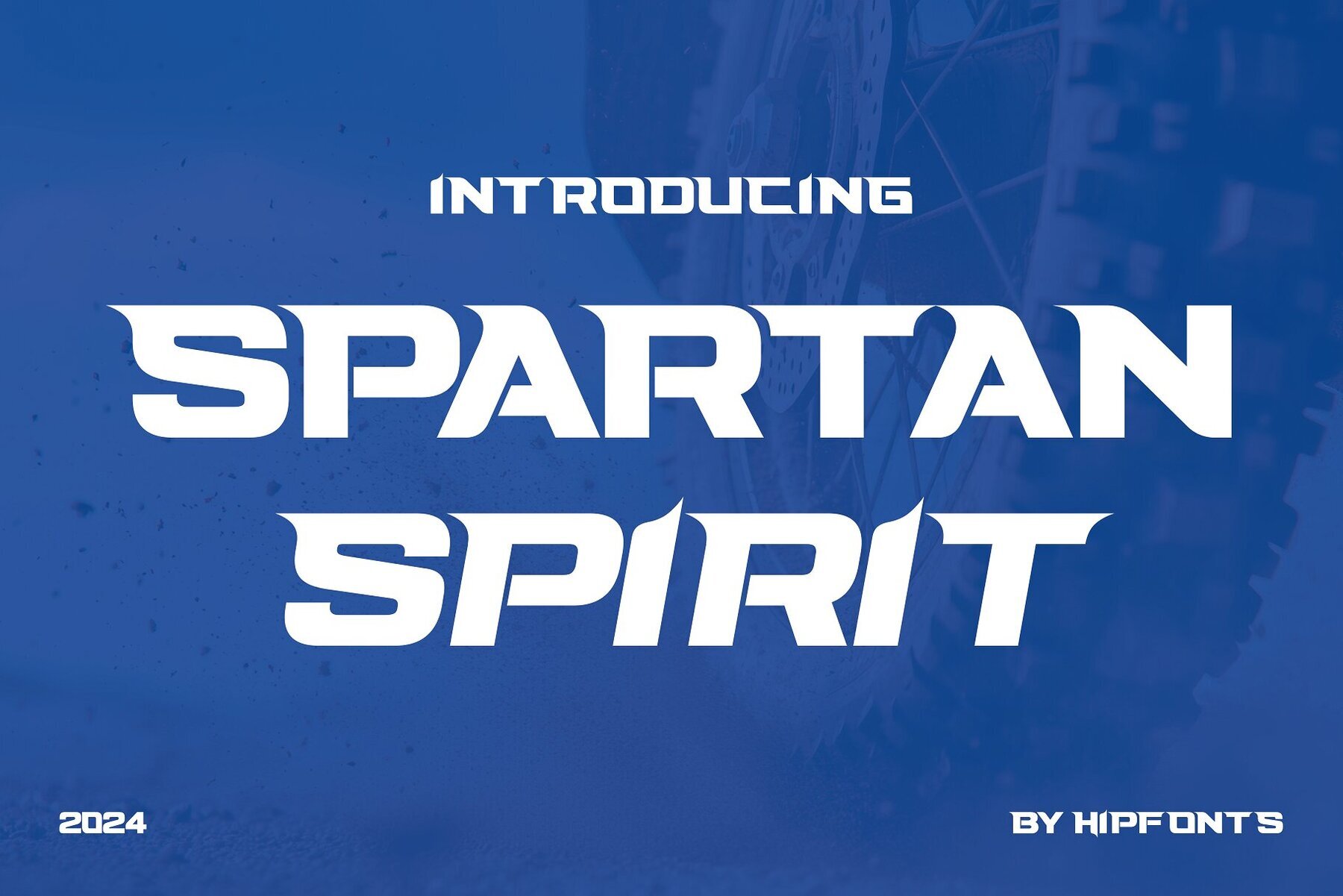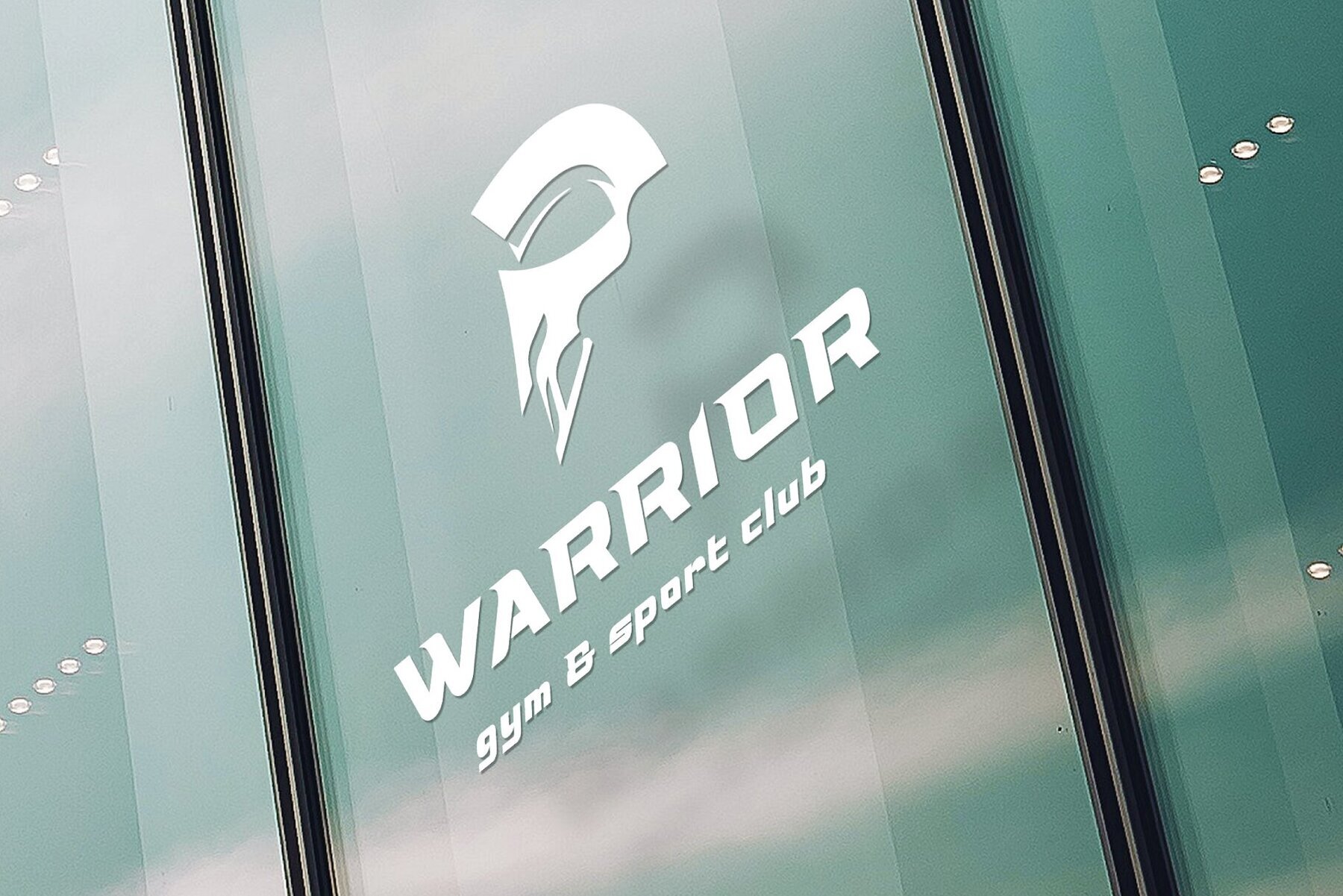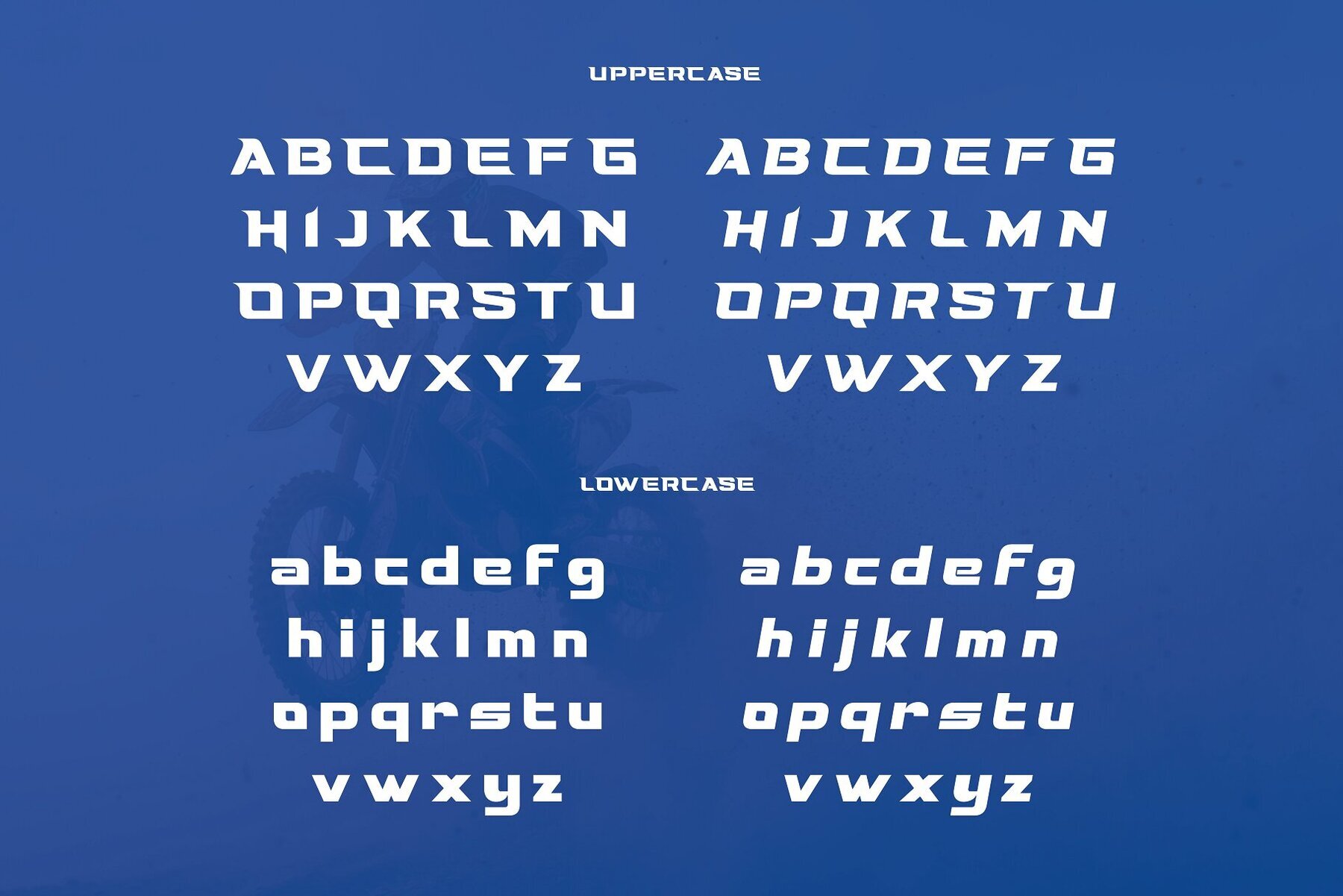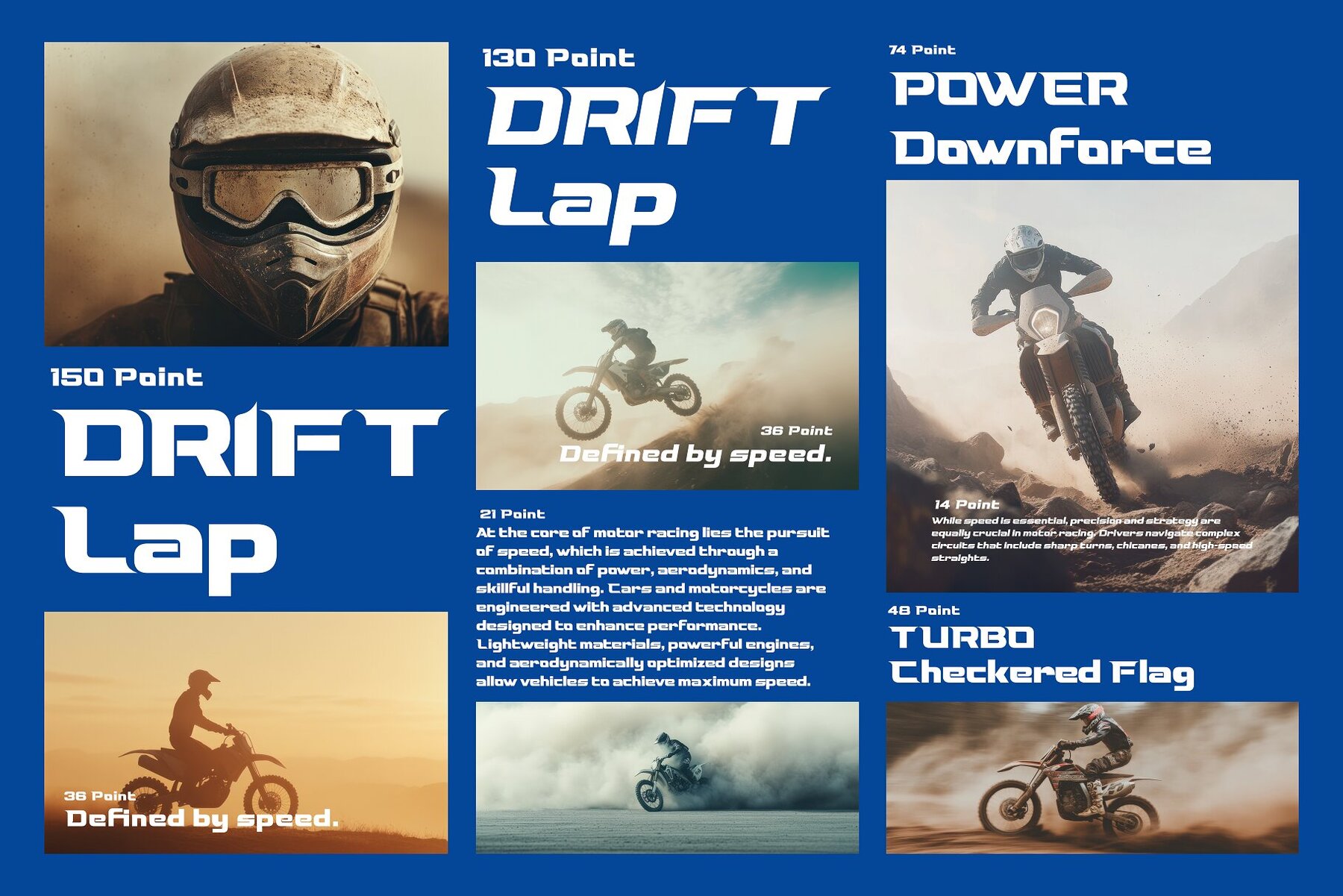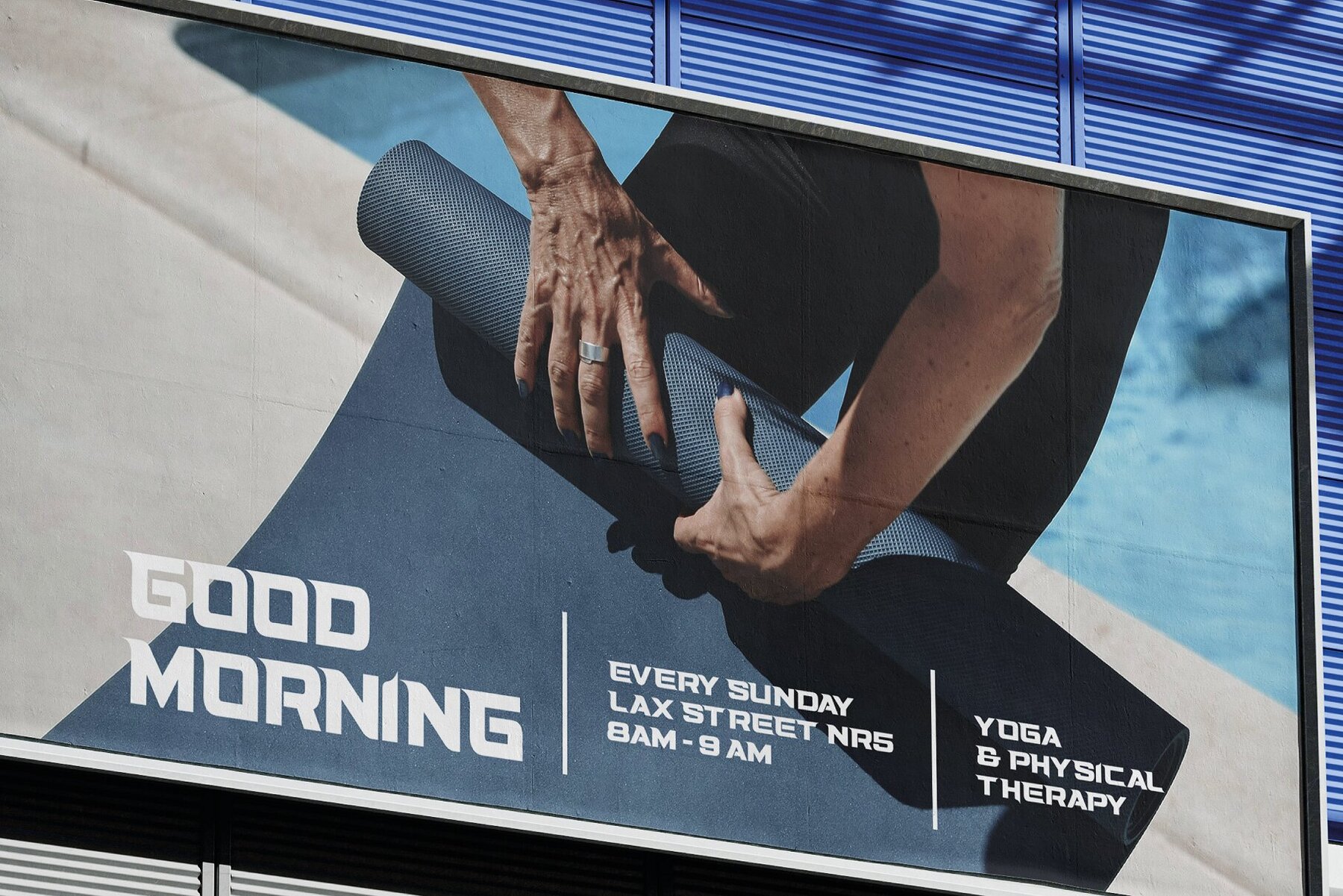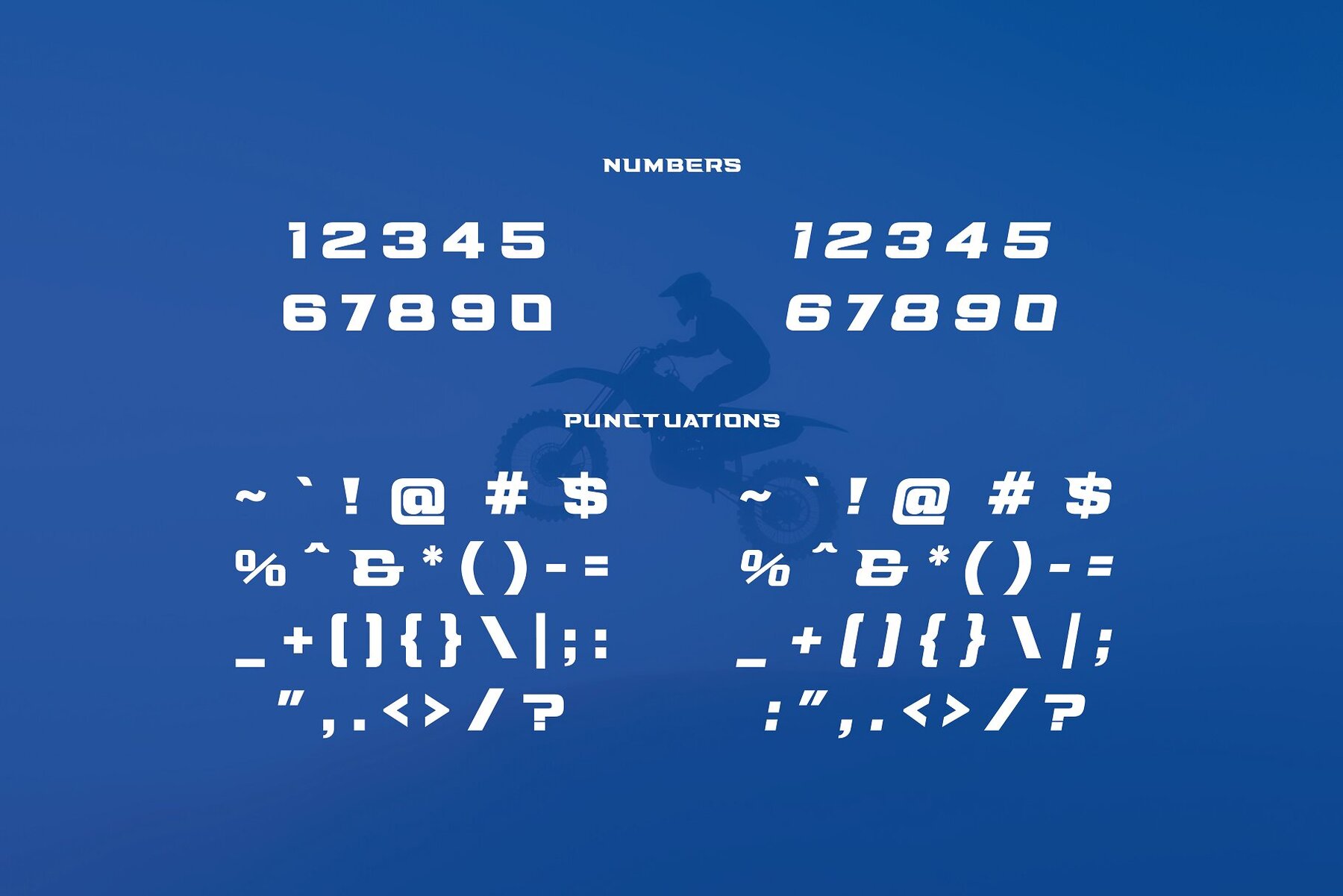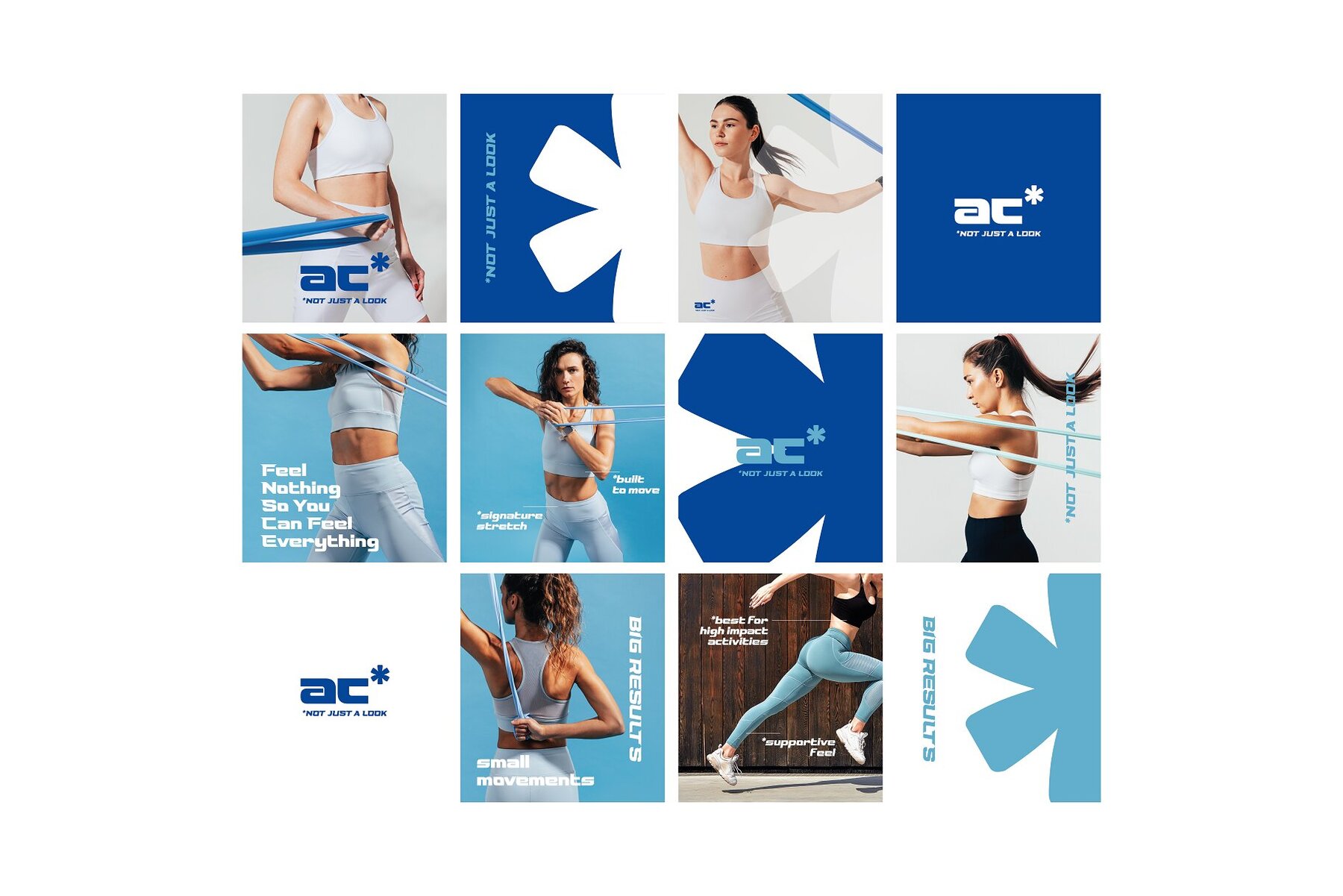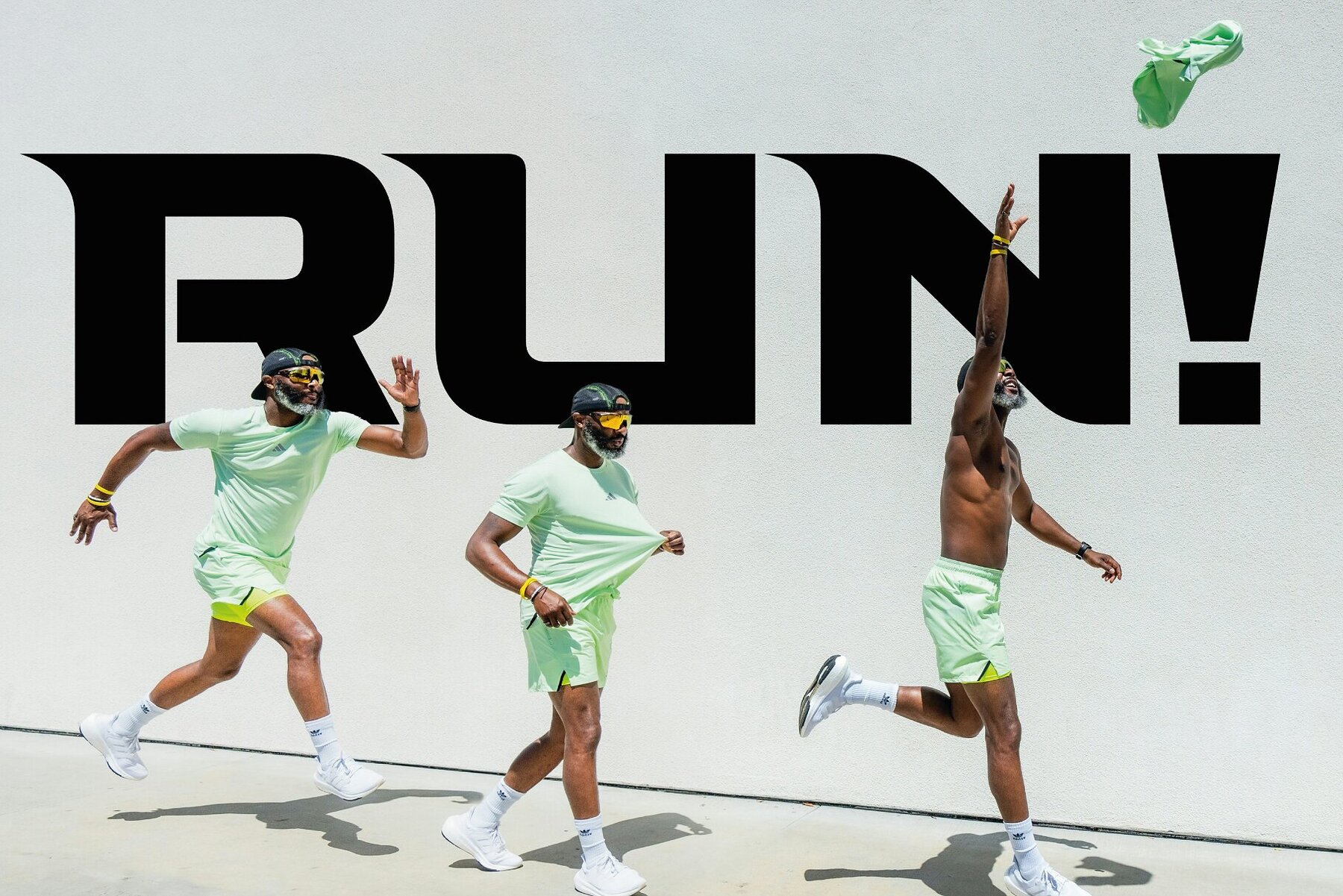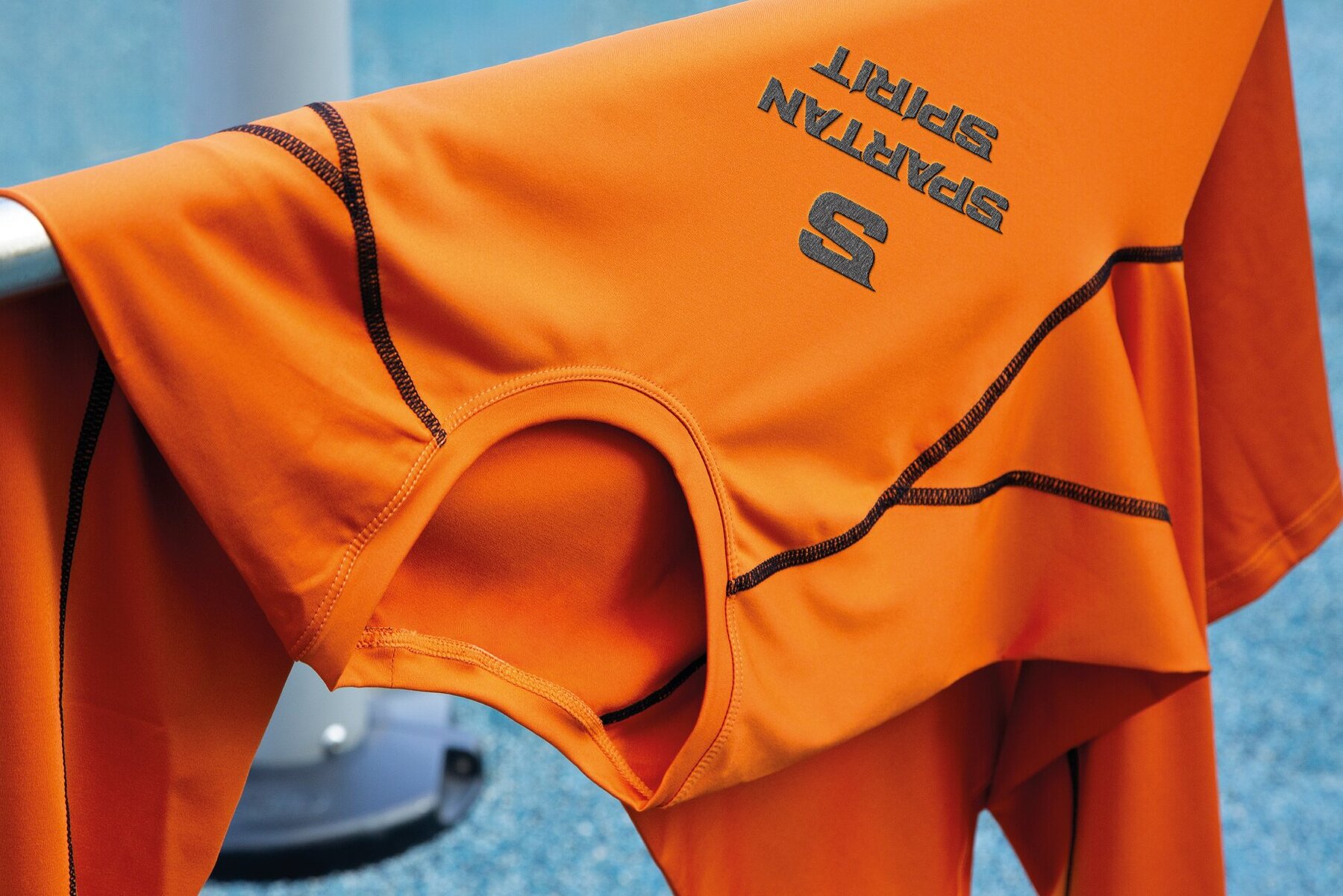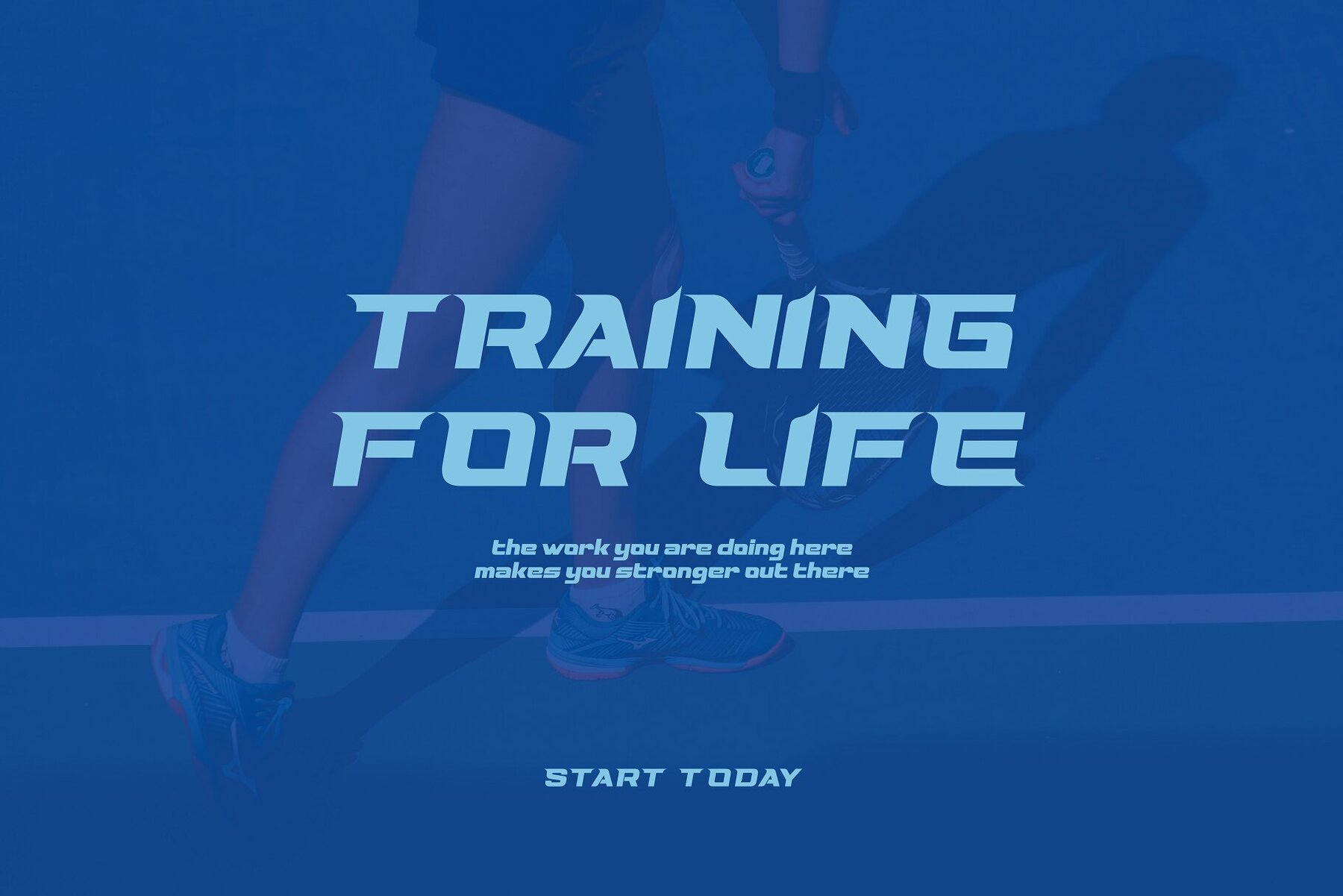
Spartan Spirit Font
Unleash the dynamic power of speed and strength with Spartan Spirit, a racing-inspired sports typeface designed for bold, high-energy visuals. Featuring sleek lines and dynamic angles, this typeface embodies the relentless spirit of competition, making it ideal for sports branding, automotive graphics, team logos, and event posters. Spartan Spirit adds motion and intensity, ensuring your projects resonate with energy and vigor.
This versatile typeface, available in both Regular and Oblique styles, is perfect for fueling adrenaline-packed designs. It adds grit to athletic branding and a modern edge to both digital and print layouts. Whether you are crafting designs for racing events, creating impactful headlines, or infusing high-speed flair into your merchandise, Spartan Spirit provides a design that is both sharp and fast. Use Spartan Spirit to turbocharge your creations and make a standout impact.